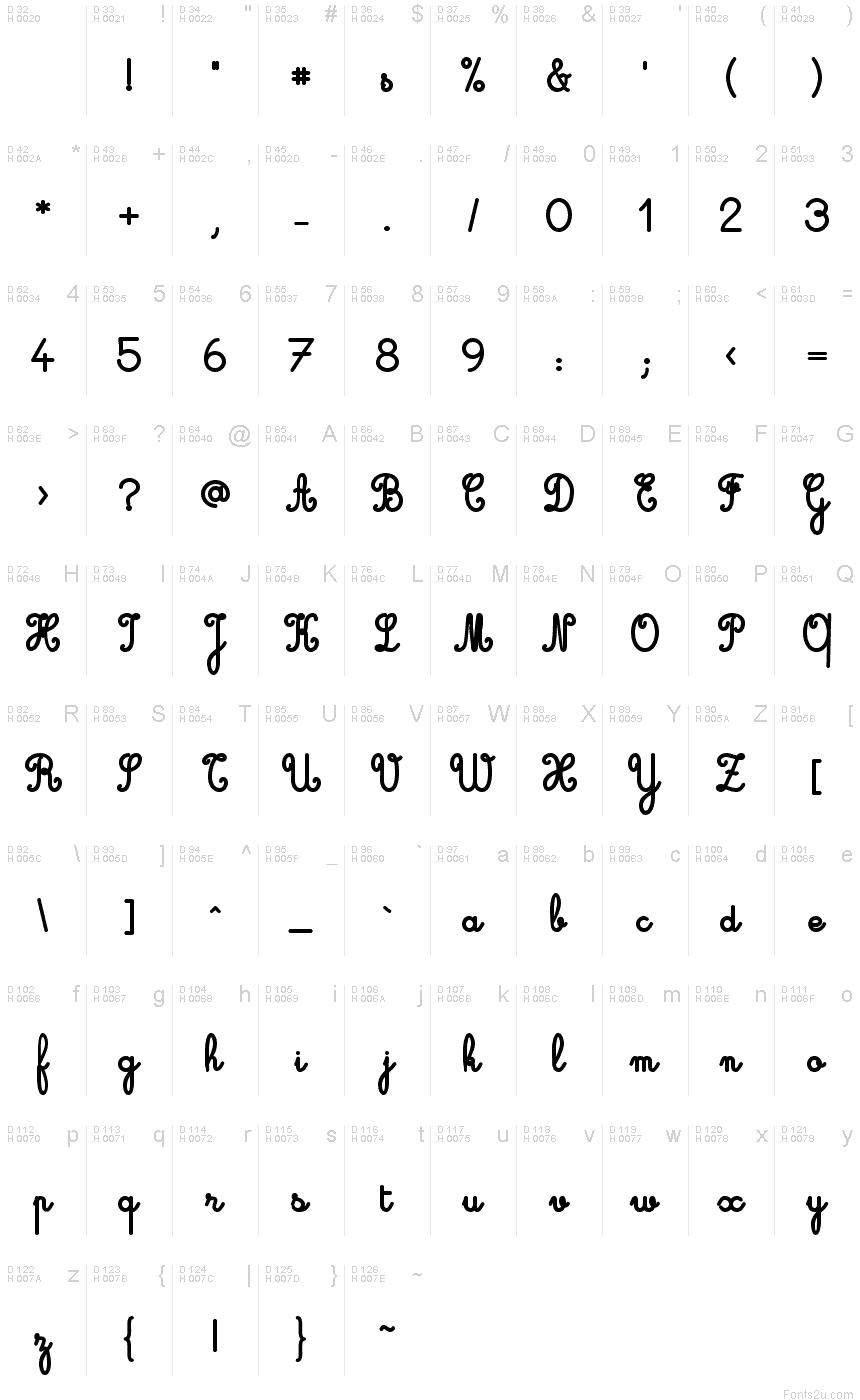
Cursivestandardbold
Cursive Standard Bold font is a free handwritten script with thick, rounded strokes and an easy left-to-right flow that feels warm rather than formal. The connected shapes make short words look smooth and lively, so it works especially well for logos, café menus, packaging, greeting cards, and social posts.
This free font keeps its weight soft and friendly, which helps it stand out on invitations, product labels, and casual shop signs without turning stiff. Cursive Standard Bold looks best at medium to large sizes, and it pairs nicely with a plain sans serif when you want the script to carry the personality.